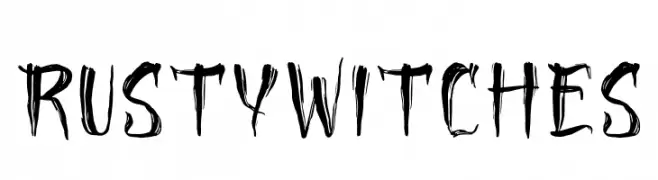
A bold, jagged font with a horror-inspired, eerie aesthetic.
A spooky, whimsical font with jagged edges and playful curves, perfect for Halloween themes.
A jagged, eerie font with a distressed, witchy aesthetic.